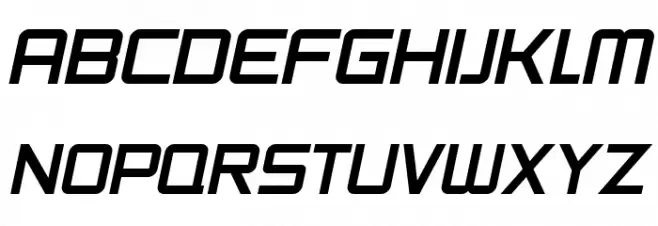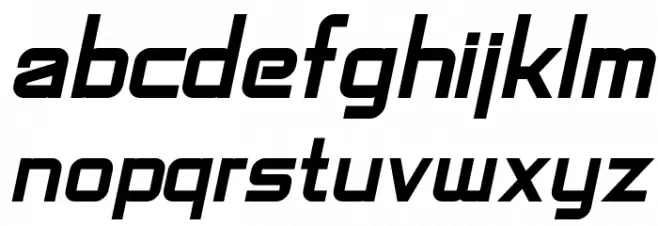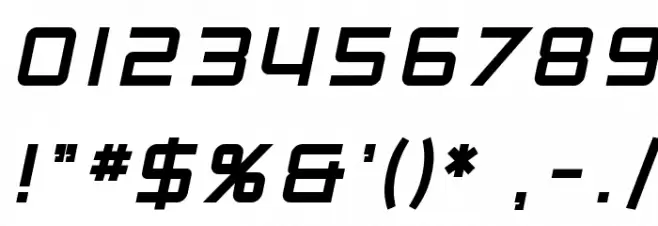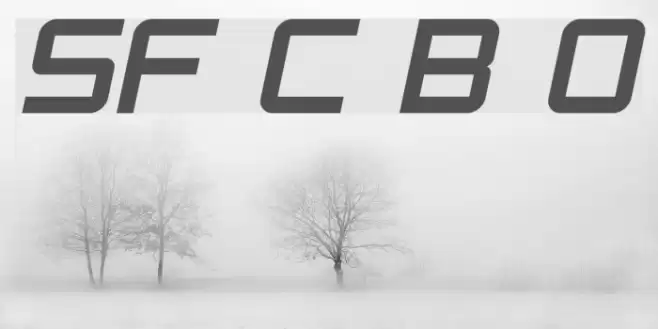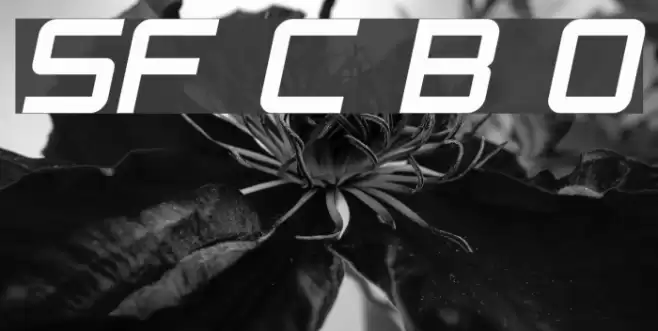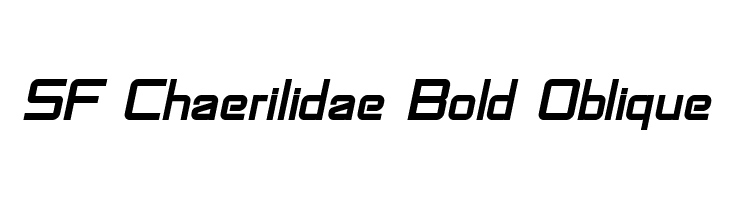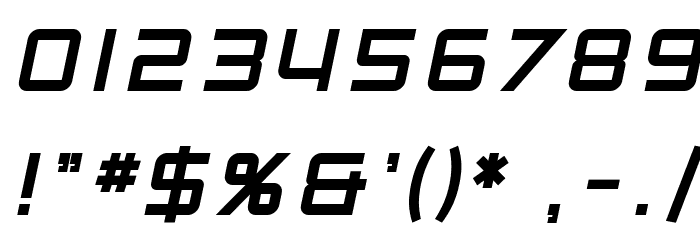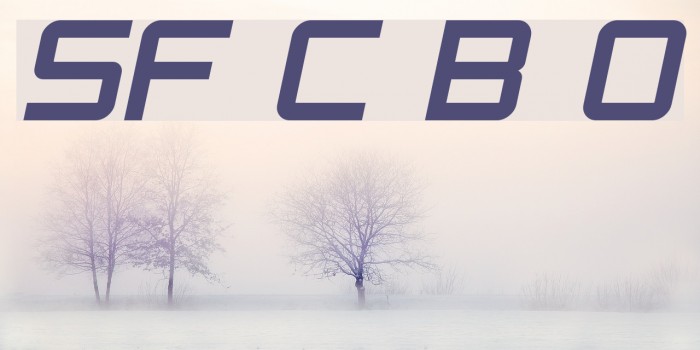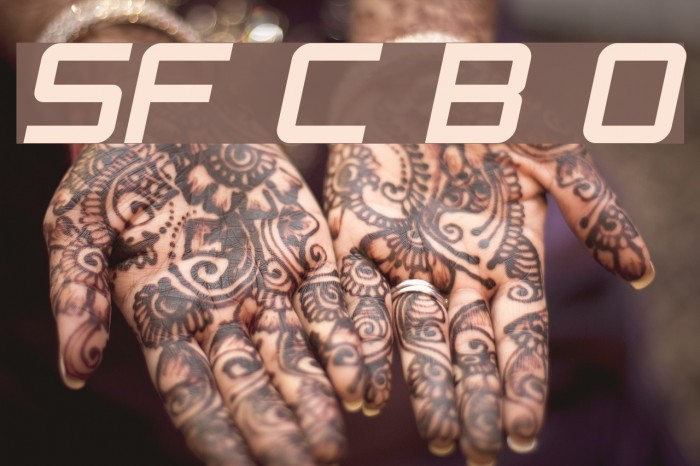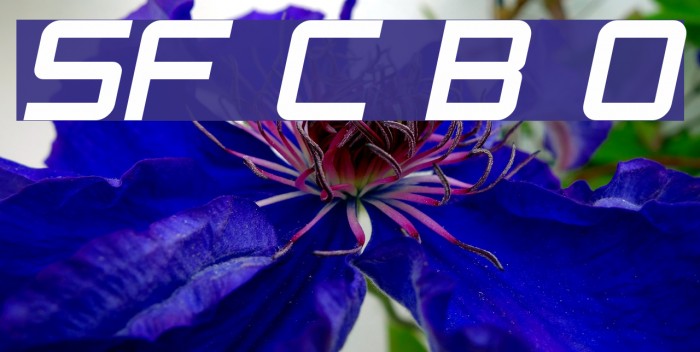
SF Chaerilidae Bold Oblique
This font features a bold and oblique style, characterized by its strong, angular lines and dynamic slant. The uppercase letters are uniform in height, while the lowercase letters maintain a consistent baseline with a slight forward tilt, enhancing readability and adding a sense of motion. The numerals are distinct and align well with the overall geometric design. Special characters are crafted to match the font's bold and modern aesthetic, making it suitable for impactful and attention-grabbing designs.
A bold, oblique font with angular lines and a modern aesthetic.
- Proposed Projects: Ideal for sports branding, dynamic posters, modern logos, and tech-related designs.
- Use Case: Headlines, Logos, Posters